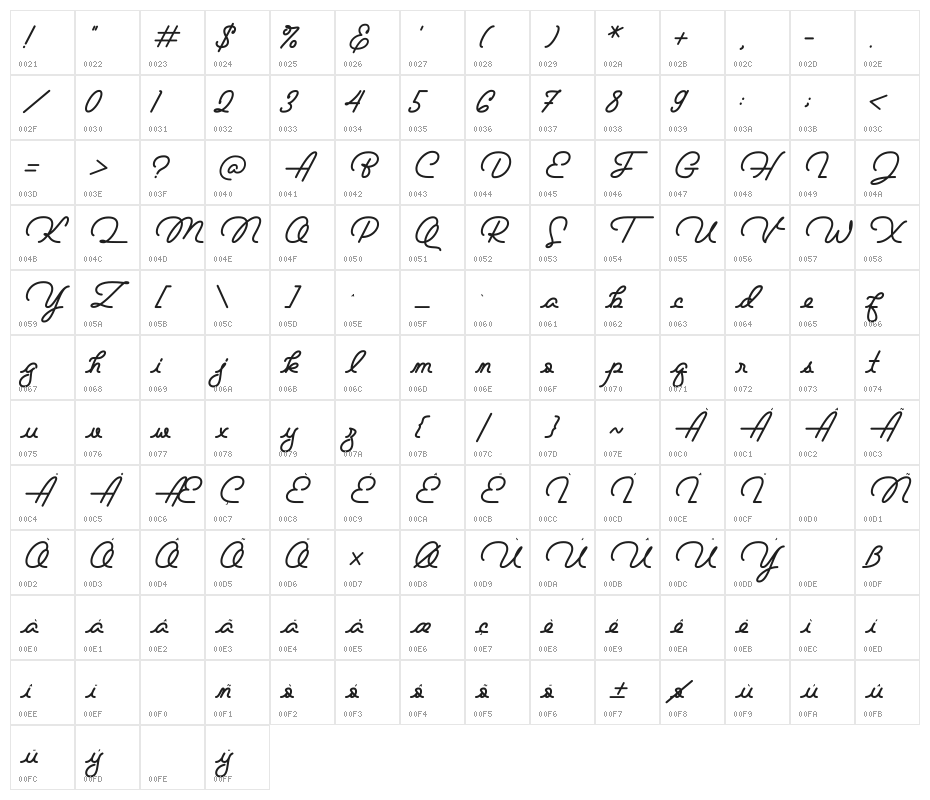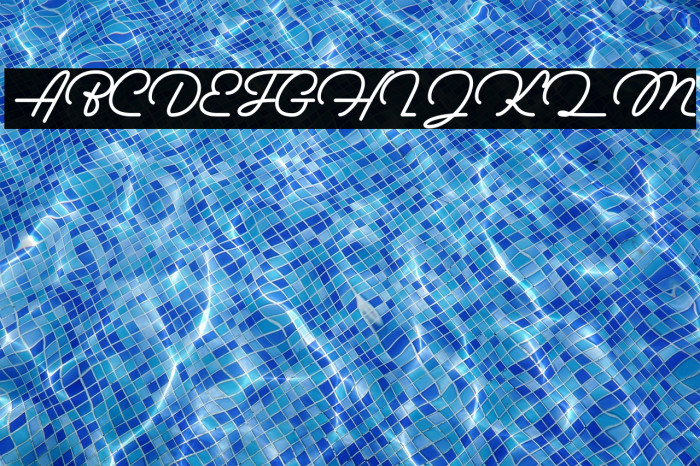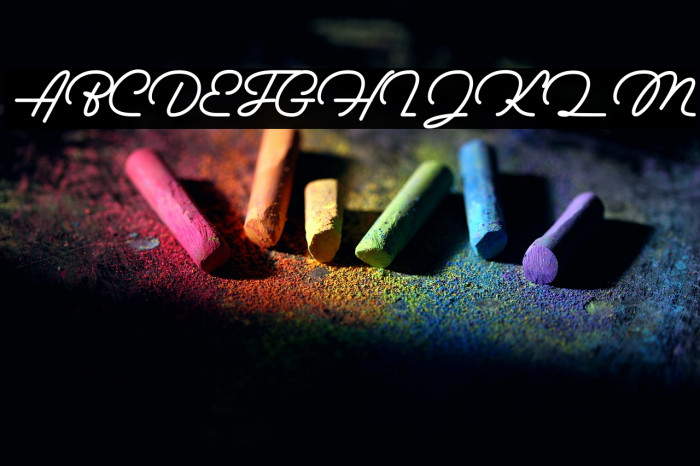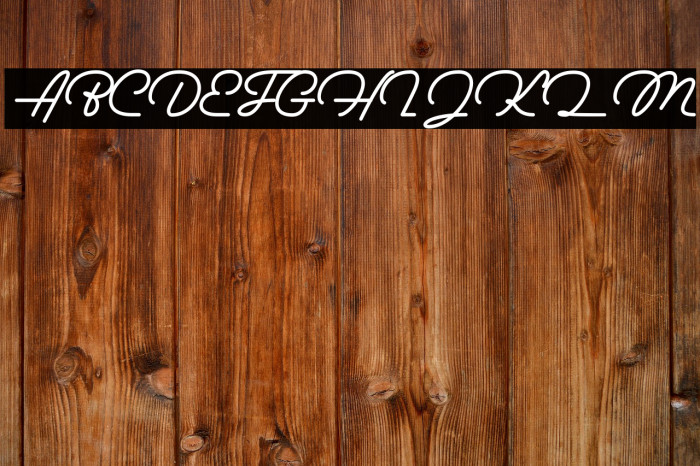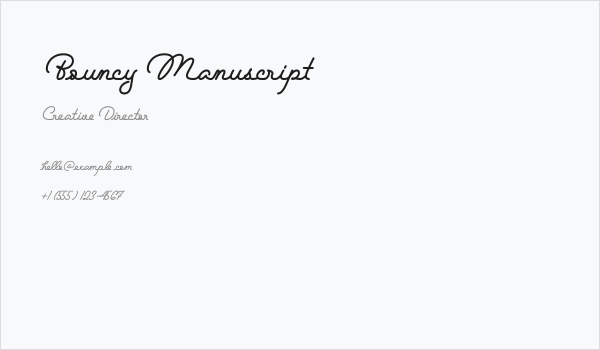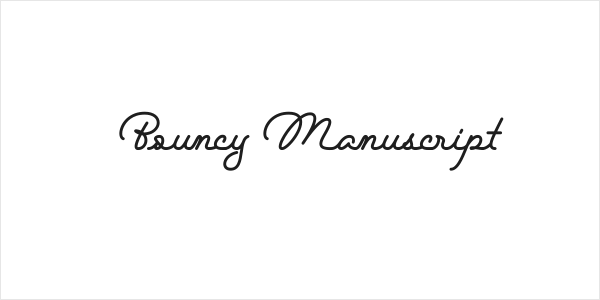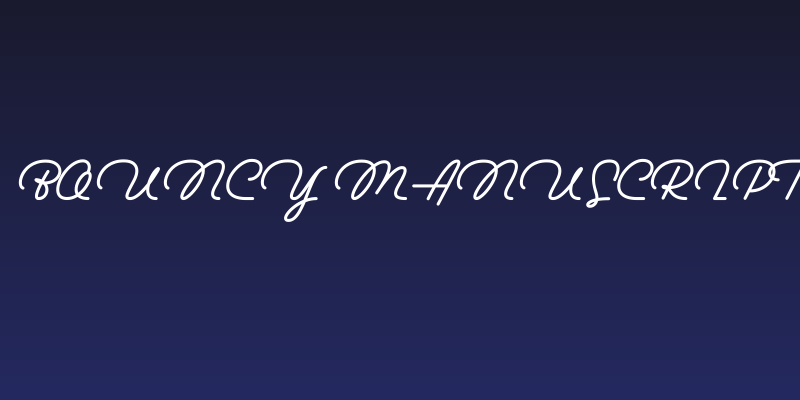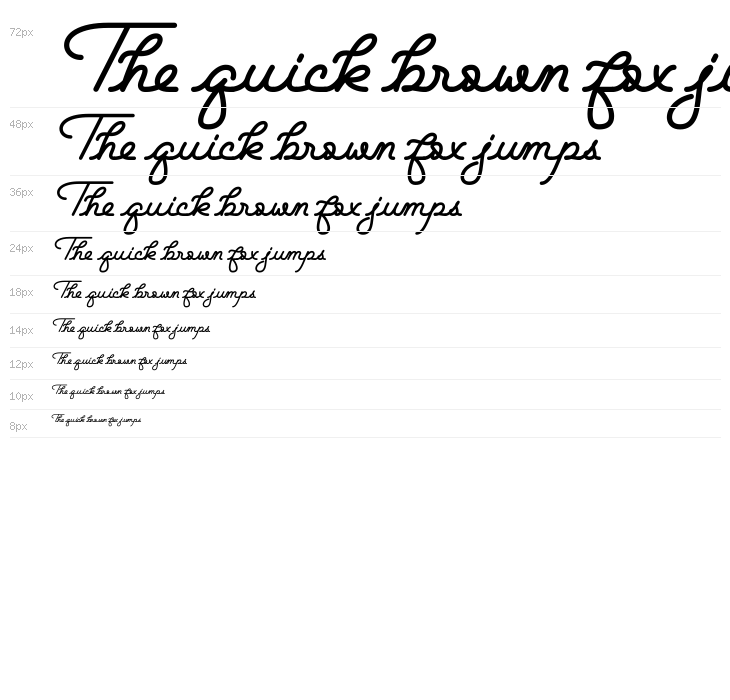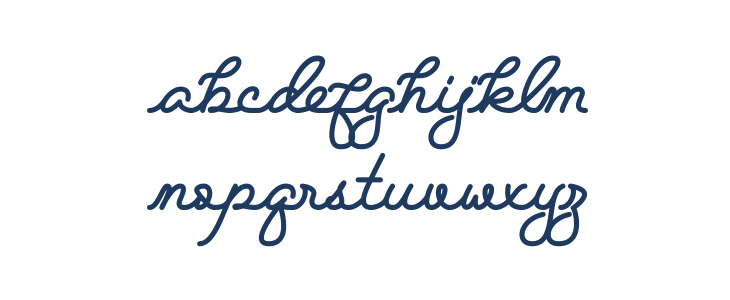
Bouncy Manuscript Font
Bouncy Manuscript Description
This font features a lively and flowing script style, characterized by its cursive, handwritten appearance. The letters are interconnected, creating a seamless and elegant look. The uppercase letters are slightly more formal, with graceful loops and curves, while the lowercase letters maintain a playful and casual feel. The numerals and special characters follow the same fluid style, ensuring consistency throughout. This font exudes a sense of warmth and personality, making it ideal for projects that require a personal touch.